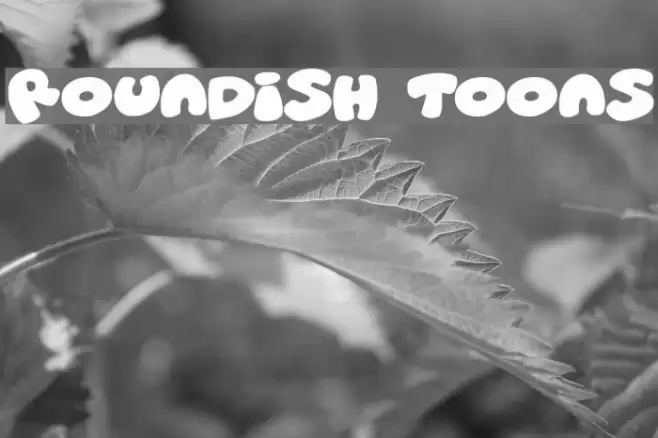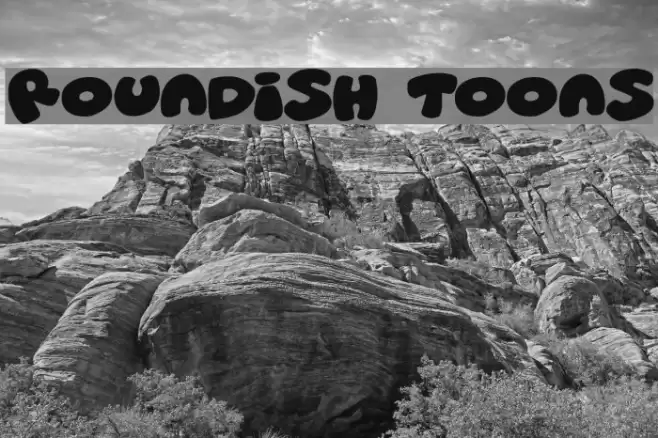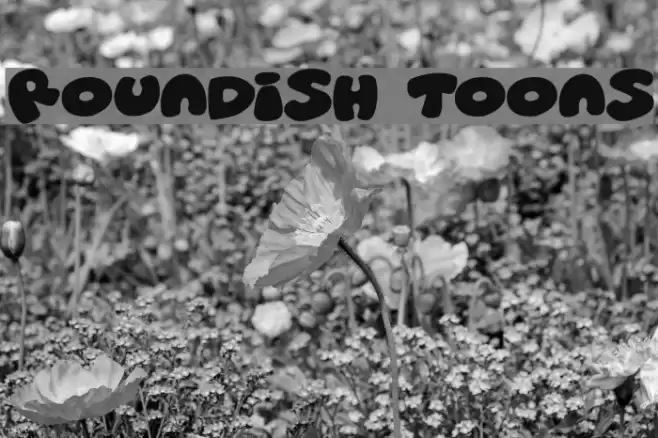
Roundish Toons Font
Roundish Toons Description
This playful and bold font features rounded, cartoonish characters that exude a sense of fun and whimsy. The letters are thick and bubbly, with a consistent weight throughout, giving them a friendly and approachable appearance. The font's exaggerated curves and soft edges make it ideal for projects that require a lighthearted and informal touch. Its unique style is both eye-catching and memorable, making it perfect for creative and artistic applications. The numbers and special characters maintain the same playful aesthetic, ensuring a cohesive look across all text elements.
A bold, rounded, and playful font with a cartoonish style from Uncategorized fonts.
- Proposed Projects: Ideal for children's books, comic strips, playful branding, and party invitations.
- Overall Style: Playful, Cartoonish